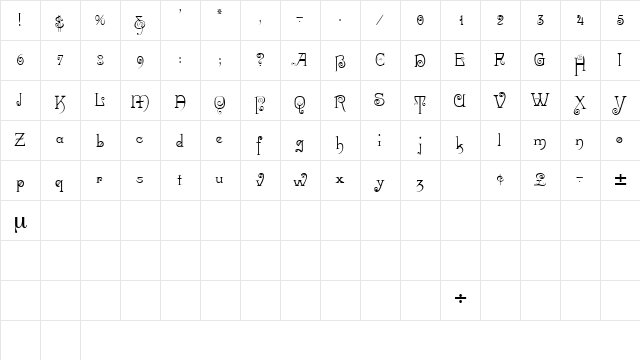
RiccioDisplayScriptSSK Regular Font Preview
RiccioDisplayScriptSSK Regular
Design Context for RiccioDisplayScriptSSK Typeface
RiccioDisplayScriptSSK brings a calligraphic fluidity to the page — its connecting strokes and expressive curves give it an unmistakably human quality.
Font Pairing: Combine RiccioDisplayScriptSSK with a simple geometric sans for maximum contrast — the tension between flowing curves and clean structure is a classic typographic pairing.
Pro Tip: Use RiccioDisplayScriptSSK for short runs of text — names, titles, or taglines. Extended body copy in script faces tires the eye quickly.